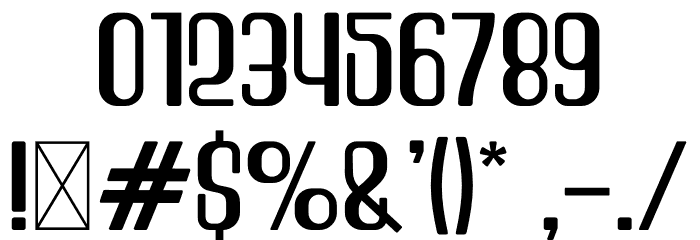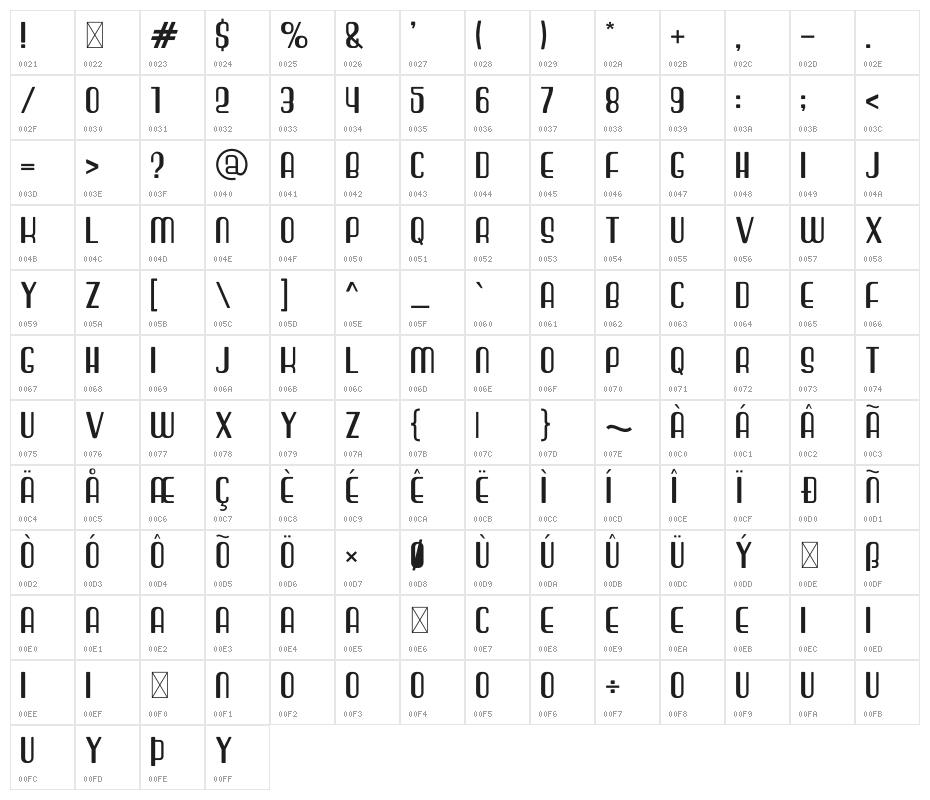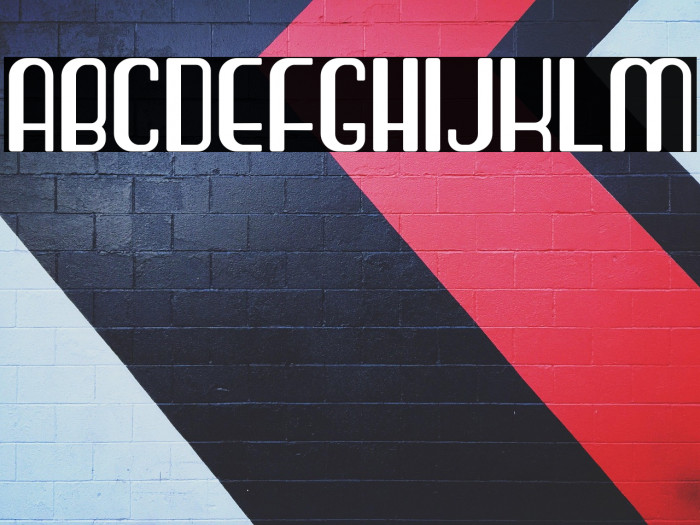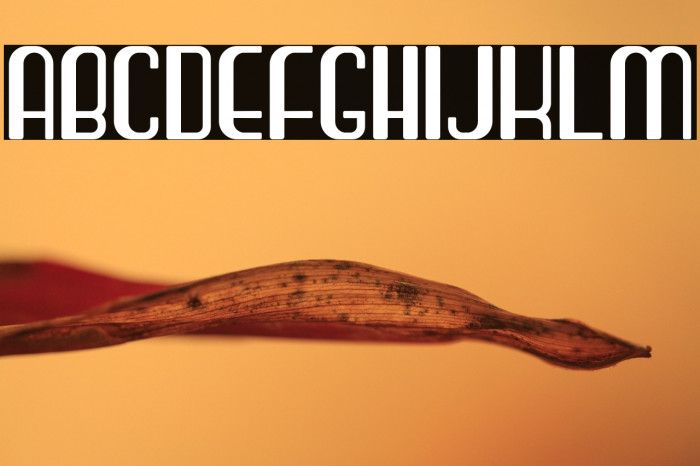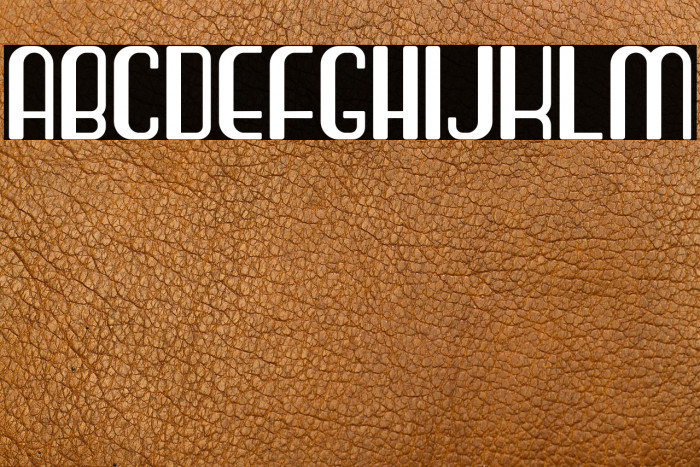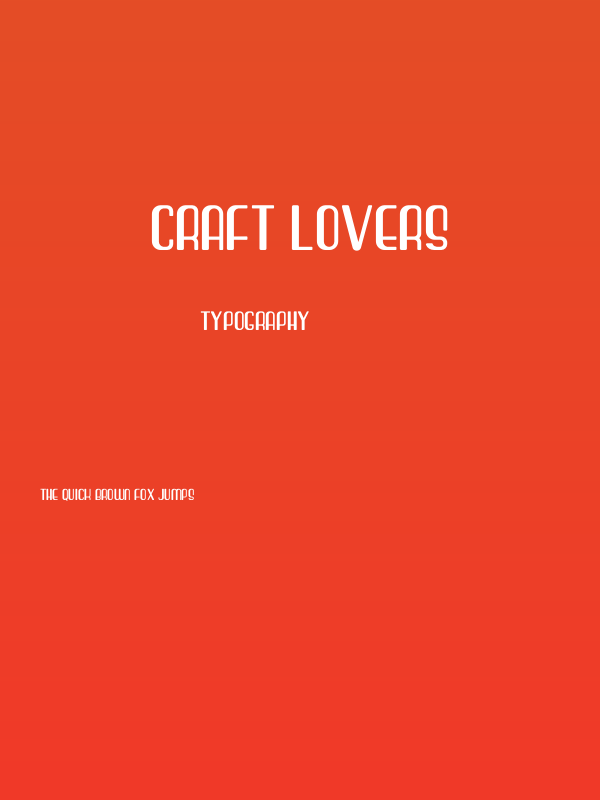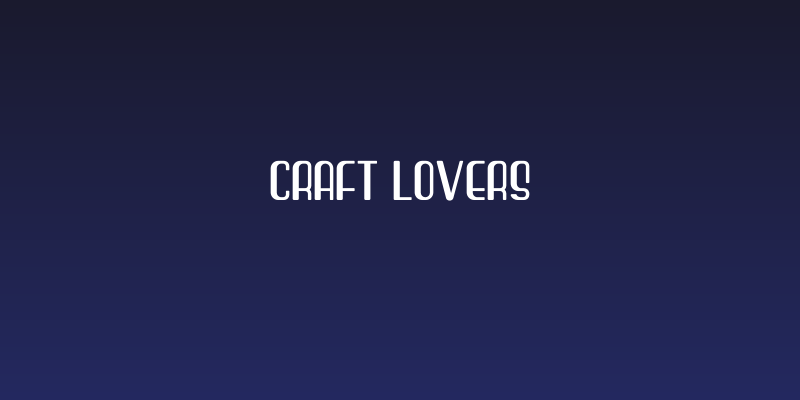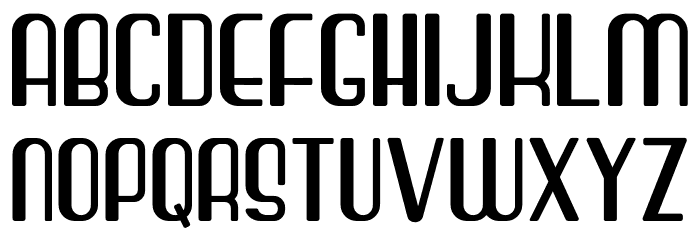
Craft Lovers Font
Craft Lovers Description
This font features a modern and geometric design with rounded edges and a clean, streamlined appearance. The uppercase and lowercase letters maintain a consistent height, contributing to a uniform look. The numerals are distinct and easy to read, while the special characters are designed to complement the overall style. The font's structure is simple yet elegant, making it versatile for various design needs. Its smooth curves and balanced proportions give it a contemporary feel, suitable for both digital and print media.
Use CaseHeadlines, Logos, Branding
Proposed ProjectsIdeal for branding, advertising, and web design projects that require a modern and clean aesthetic.